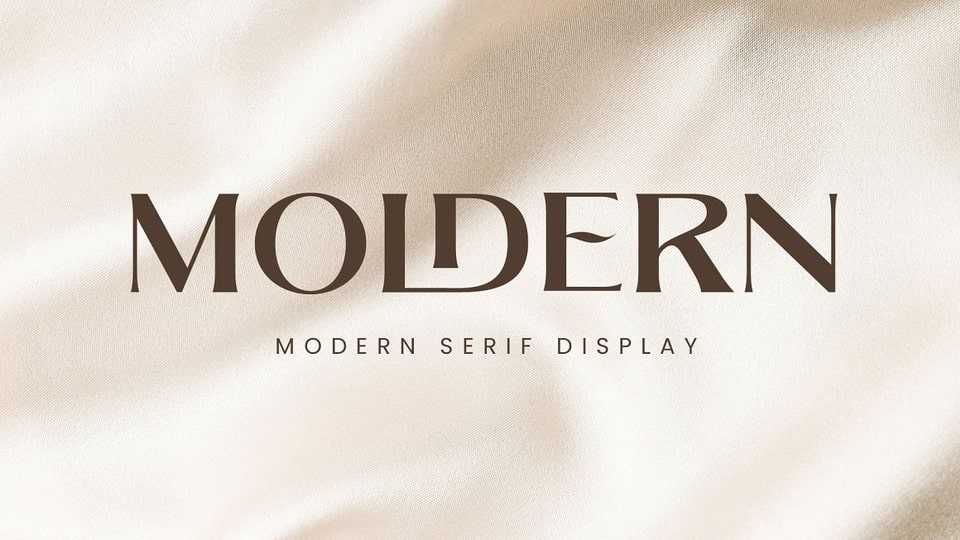
Download Moldern font, a modern-style serif typeface with stylish ligature explorations. Moldern combines decorative, vintage, and minimalist style with a bold weight that is suitable for display.